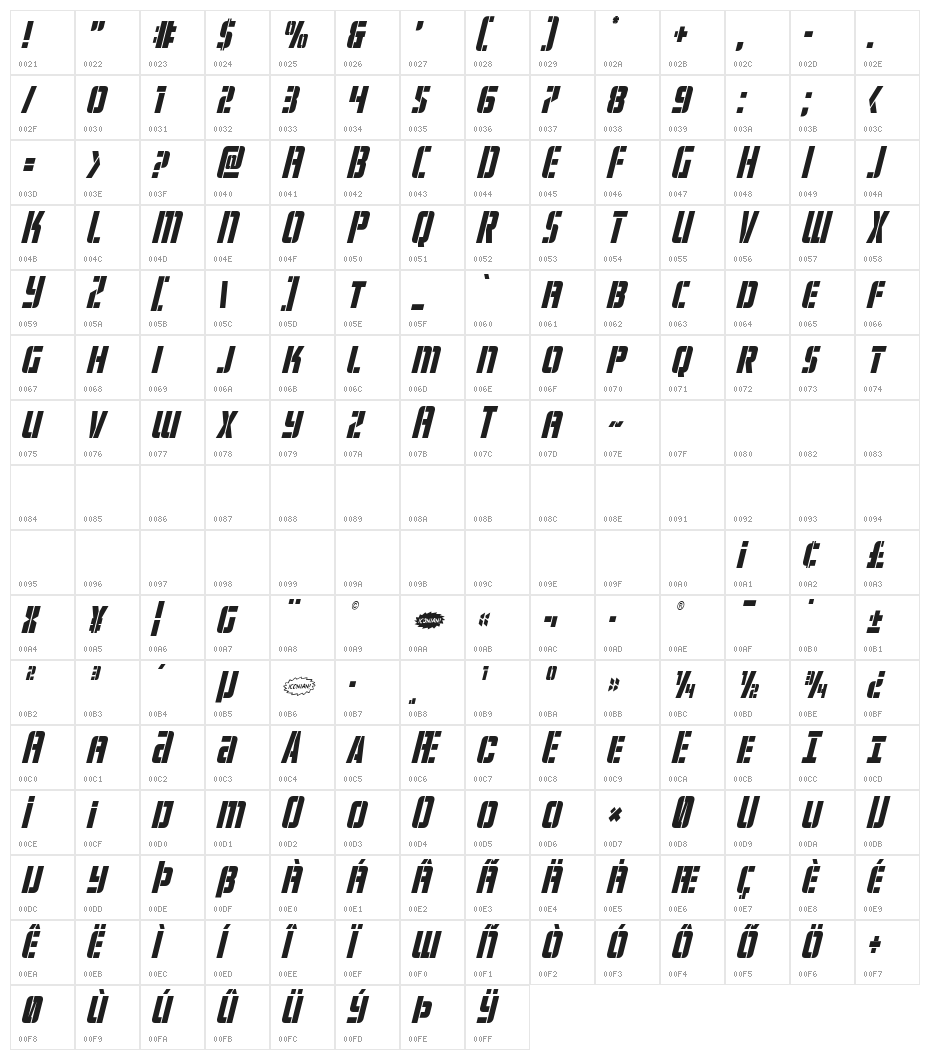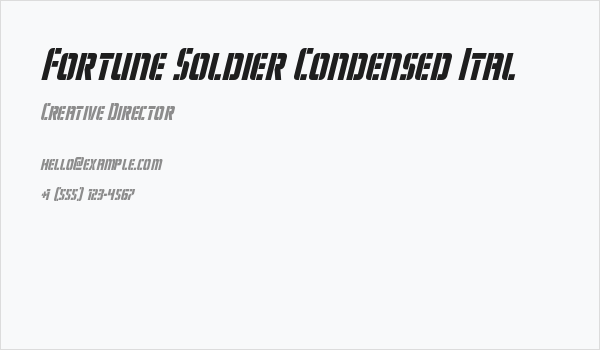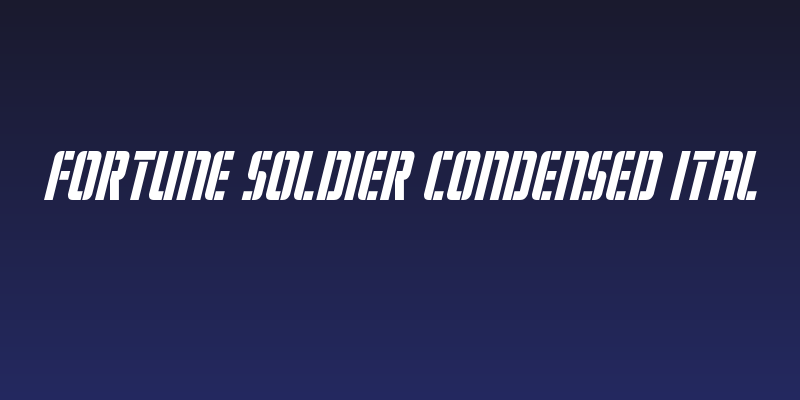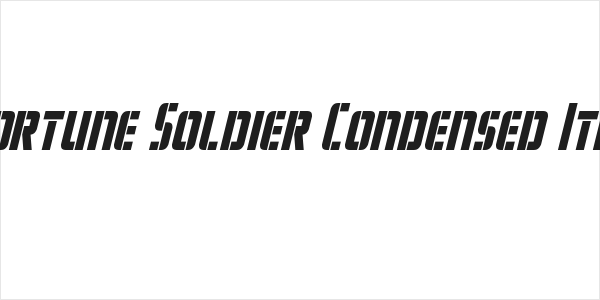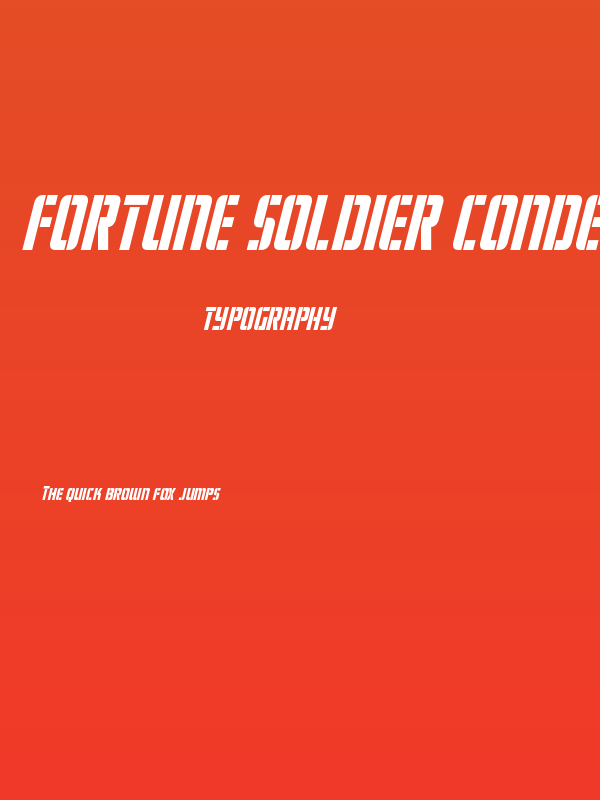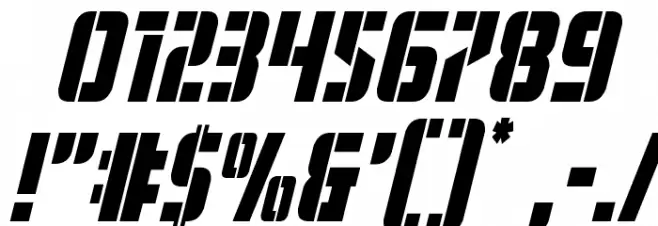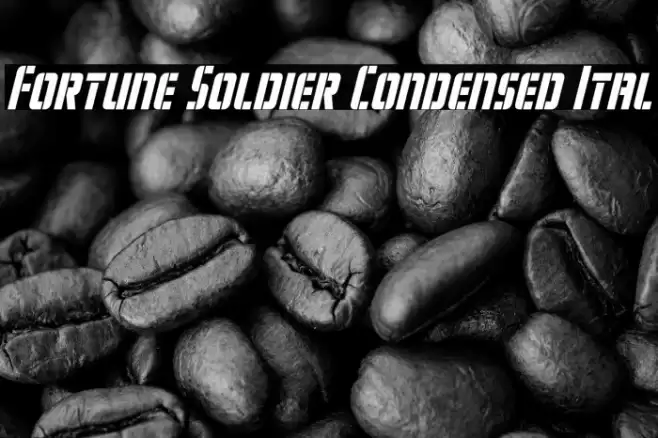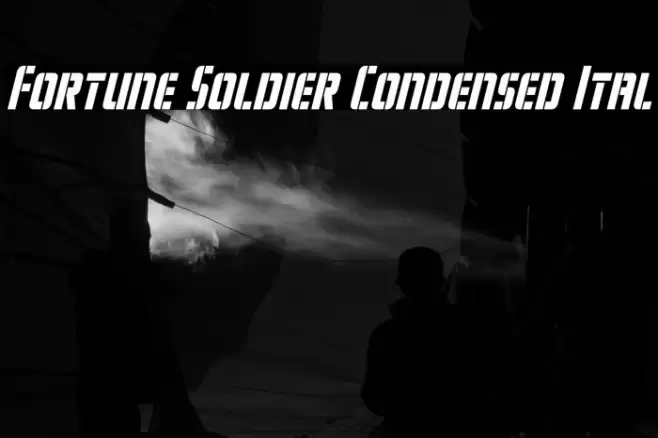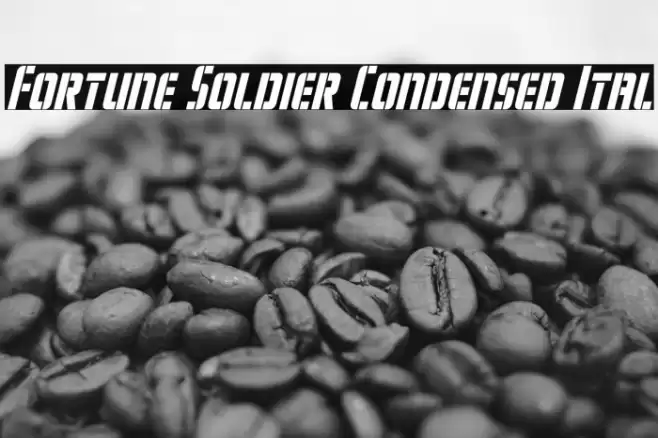
Fortune Soldier Condensed Ital Font
This font features a bold, condensed style with a distinct slant, giving it an italicized appearance. The characters are tightly spaced, enhancing its compact look. The strokes are thick and consistent, providing a strong visual impact. Its geometric shapes and sharp angles contribute to a modern and dynamic feel, making it suitable for attention-grabbing designs. The uppercase and lowercase letters maintain uniformity in style, while the numerals and special characters are designed to match the overall aesthetic. This font's unique style is ideal for projects that require a bold statement.
| Proposed Projects | Ideal for posters, headlines, branding, and advertising where a strong visual impact is needed. |